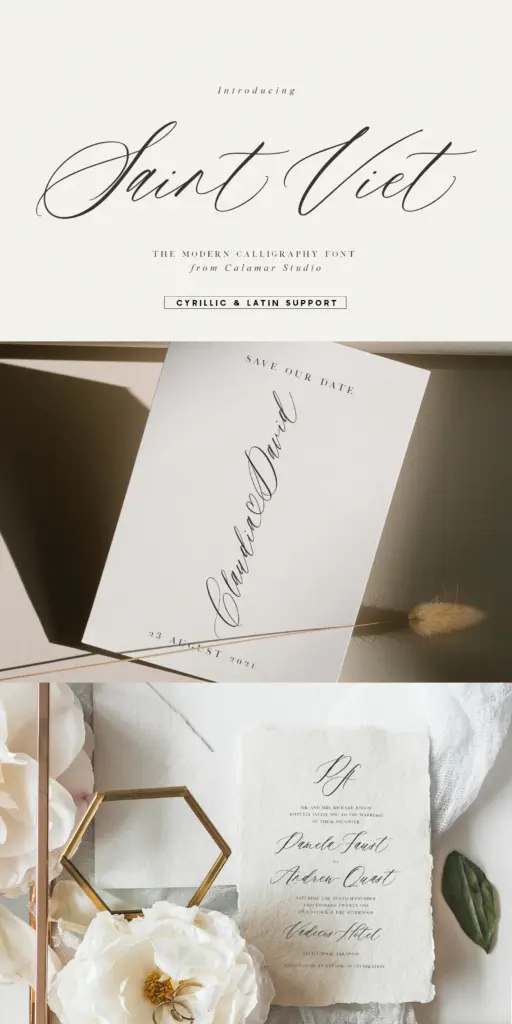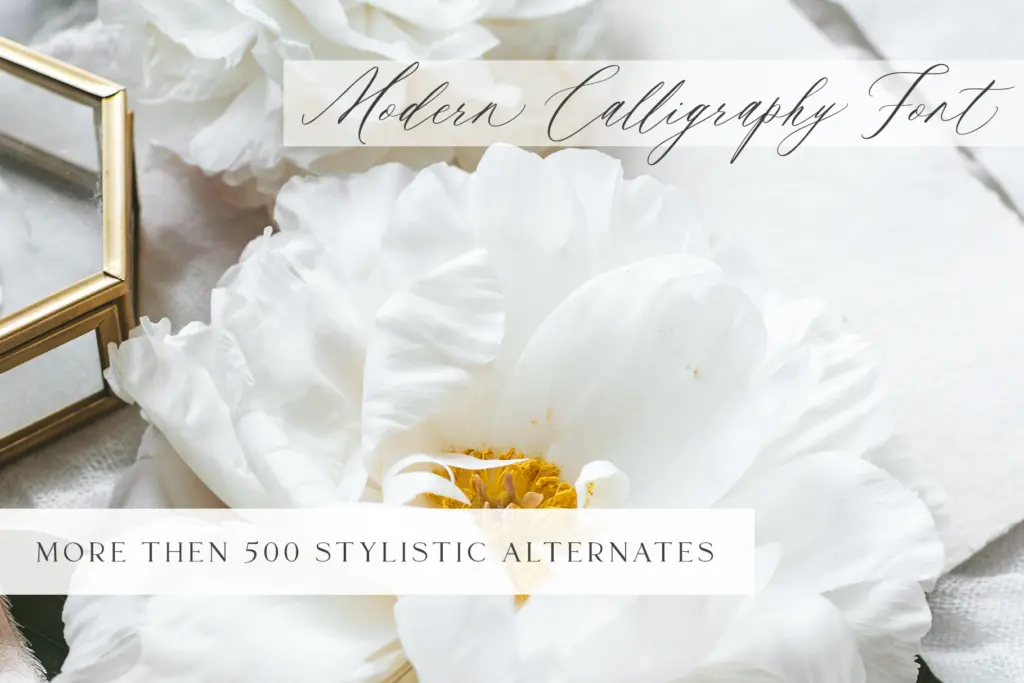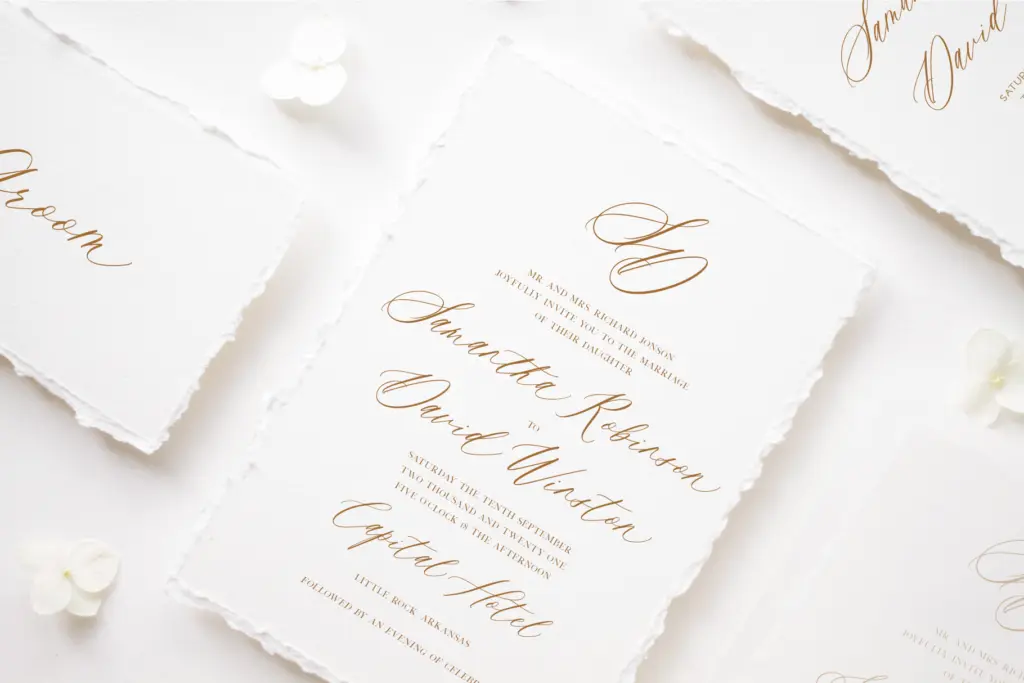
Saint Viet: a light modern calligraphy script for wedding suites
Saint Viet sits in the crowded field of modern calligraphy scripts, but its stroke contrast leans lighter than most. The upstrokes are hairline thin, the downstrokes swell just enough to give the letters weight, and the whole thing reads as pen-drawn rather than brush-drawn. There’s a softness to the joins between letters that keeps the flow from feeling mechanical, which is the main risk with this genre of font once you’ve seen a hundred of them.
Where it earns its keep is in the connecting logic. Many calligraphy fonts fake fluidity by overlapping glyphs; Saint Viet’s baseline sits steady while the loops and tails do the work of implying movement. It won’t surprise anyone who has used a modern script font before, but the execution is clean, and the lowercase in particular has a consistent slant and rhythm that holds up across a full line of text.
The set covers uppercase and lowercase, numerals, and punctuation, plus a large bank of stylistic alternates — reportedly more than 500 across the family, with some uppercase letters offering as many as ten variants. That’s a genuinely useful amount of choice for anyone hand-assembling a wordmark or a monogram, since it means you’re rarely stuck with the default glyph shape when it clashes with a neighbouring letter.
Ligatures are included too, which matter more in a script like this than in a sans or serif — connected scripts live or die on whether common letter pairs join naturally, and the ligature set here smooths over several combinations that would otherwise look pasted together. Latin and Cyrillic support broadens the field considerably, and the language list covers most of the common Central and Eastern European diacritics, so accented characters aren’t an afterthought.
The catch with a feature set this large is accessibility. Stylistic alternates and ligatures are typically accessed through OpenType features, which means getting the most out of Saint Viet requires software that supports them properly — a real point-and-click app for setting text, not just a text box. Users working in more limited tools will get the default glyphs and lose most of what makes this font distinct from simpler scripts.
This is a font built for the wedding stationery pipeline: invitations, save-the-date cards, place cards, monograms. The light weight and generous flourishes suit ivory card stock and gold foil treatments, and it will do fine work as a feminine branding script for florists, bakers, or boutique studios where a handwritten signature look is the goal.
It’s not a font for body copy or anything that needs to be read quickly — scripts this ornate rarely are, and Saint Viet doesn’t pretend otherwise. Keep it to headlines, short phrases, and names. At small sizes the thinnest strokes can disappear on lower-resolution screens or cheap print stock, so test before committing to a run of printed cards. Pair it with a plain sans or serif for supporting text rather than asking it to do everything in a layout.
- Large bank of stylistic alternates gives real control over awkward letter pairings
- Latin and Cyrillic support with broad diacritic coverage
- Ligatures smooth over joins that would otherwise look disconnected
- Thinnest strokes risk disappearing at small sizes or on lower-quality print stock
- Full alternate and ligature set only works properly in software with OpenType feature support
Saint Viet is a well-drawn modern calligraphy script with a genuinely deep alternate set, best suited to wedding stationery and soft branding work. It asks for OpenType-capable software to show its full range, and its thin strokes need care at small sizes or low print quality.